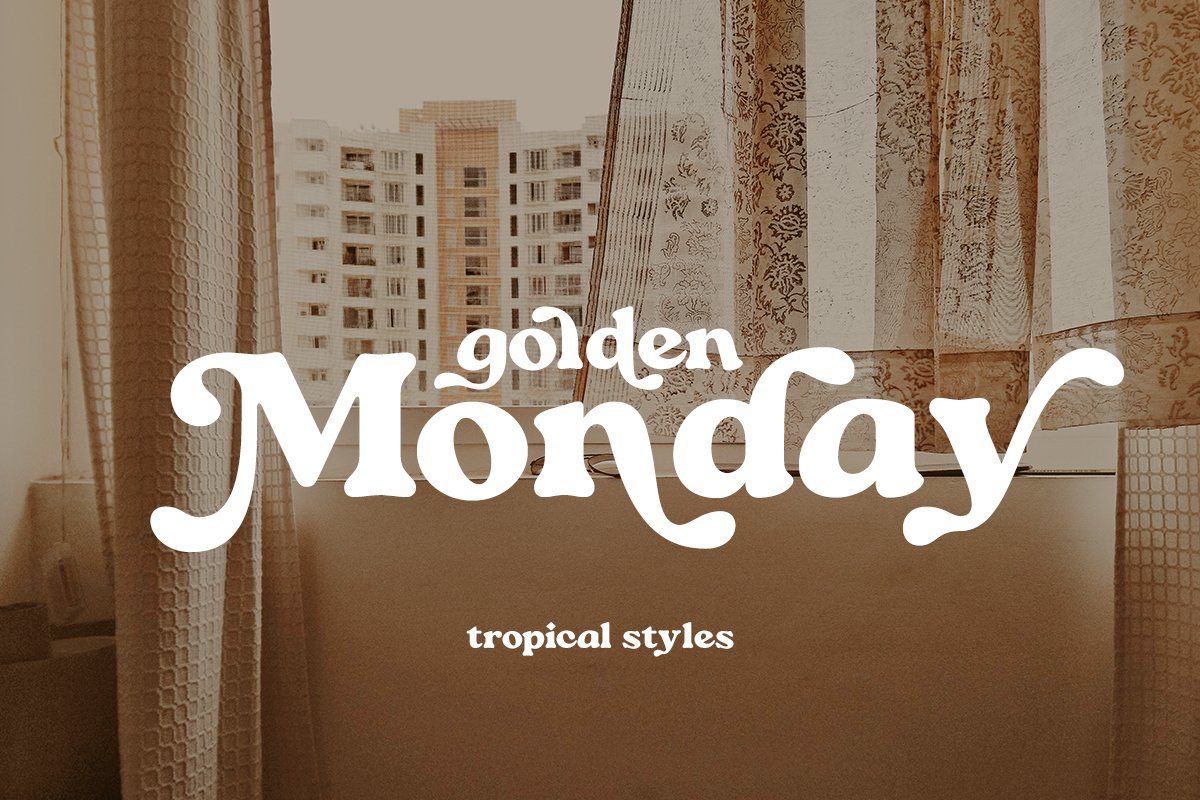
About the Astro Earth | Retro Display
Astro Earth fonts includes uppercase letters, lowercase letters, numerals, a large range of punctuation, Serif font with modern stylish style include ligatures and alternate characters, Created for poster, web design, branding, illustrations, badges and some other works, Include ending swashes and alternative font, Astro Earth OTFAstro Earth TTFAstro Earth Italic OTFAstro Earth Italic TTFPlease contact us if you have any question, we are happy to help you!Thank you!